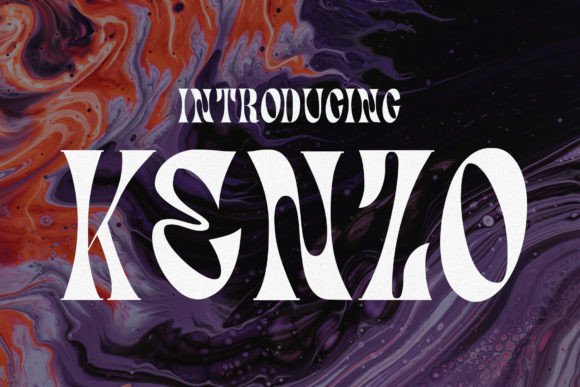
Introducing Kenzo Font: The Ultimate Gangster Letter Typeface!
Embark on a psychedelic adventure with Kenzo, the groovy display typeface that will transport you back to the carefree era of the 1960s and 1970s. Its captivating letter forms dance and swirl, creating an aura of mystique and intrigue that is perfect for expressing your inner rebel.
Whether you're designing striking band posters, crafting eye-catching hippie logos, or captivating social media posts, Kenzo will infuse your creations with a touch of groovy flair. Its versatility extends to packaging and magazine covers, allowing you to add a dash of retro charm to any design project.
Embrace the wavy hippie vibes and let your creativity soar with Kenzo. It's the font that will make your designs stand out from the crowd and leave a lasting impression on all who behold them. Join the groovy revolution today with Kenzo, the ultimate gangster letter typeface!